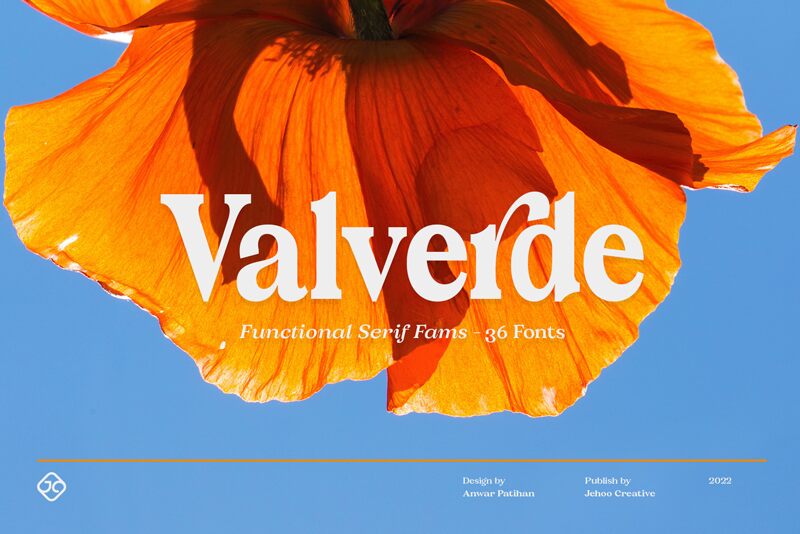
Valverde Condensed Semibold emerges as a distinctive choice within the Valverde font family, masterfully crafted by Jehoo Creative. This semi-bold, semi-condensed serif typeface boasts an elegance that is both classic and contemporary. Its sharp, refined contours are inspired by vintage aesthetics now reinvigorated as a modern trend, making it a versatile asset for designers aiming to infuse their projects with a touch of class.
The extensive range of the Valverde family includes 18 fonts across two widths-condensed and standard-and covers a spectrum from thin to black, complete with stylistic italics. The inclusion of OpenType features like Stylistic Alternates and Ligatures elevates Valverde Condensed Semibold beyond mere letters on a page; it becomes an essential tool for creating sophisticated and aesthetically pleasing designs. Whether you're working on branding, editorial content, or any creative endeavor in between, this font is tailored to elevate your project's visual narrative.